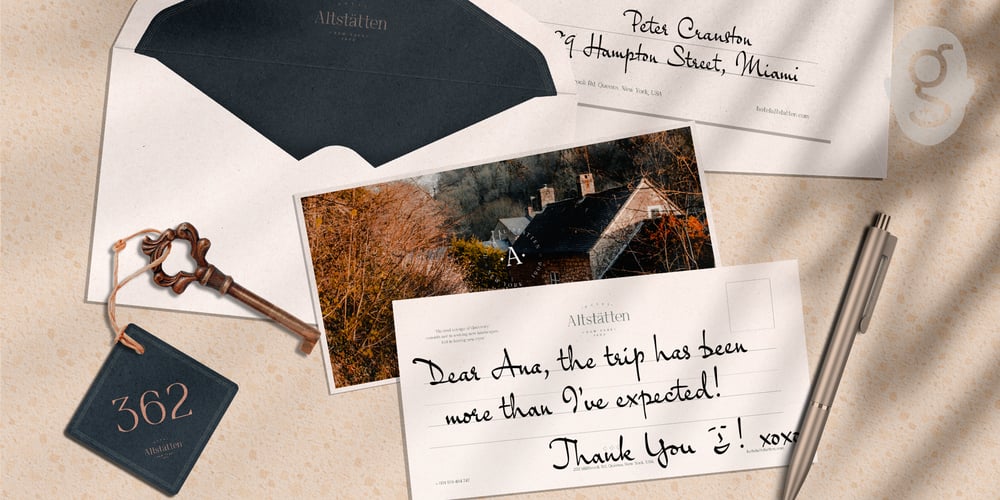
Goskar Font Family was designed by Nick Cooke and published by G-Type. Goskar contains 4 styles and family package options. Goskar is a dynamic script family having four weights from Light to Black.Like it’s close relative Rollerscript the character set includes small caps, arrows, underlines, icons & emoticons, plus an additional style set which swaps the default z & r glyphs to their more basic alternates.